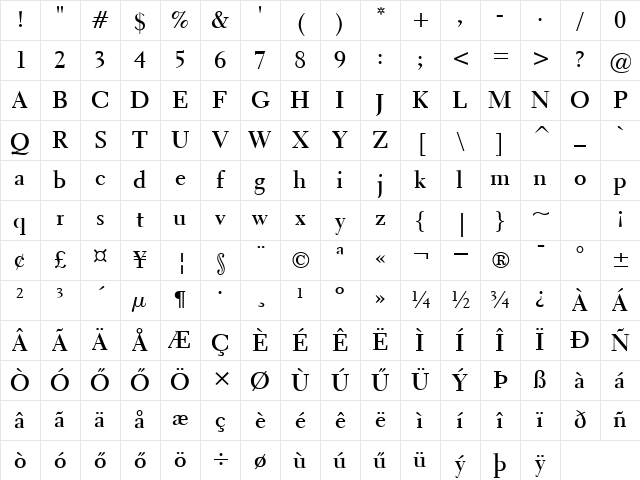
H_Transitional 521 BT Bold
Design Context for H_Transitional 521 BT
H_Transitional 521 BT is a composed and adaptable typeface that performs quietly and consistently across a wide range of design contexts. Its bold stroke weight gives it real presence on the page.
Pro Tip: Use H_Transitional 521 BT in both headline and body roles to test its range before committing to a single application.